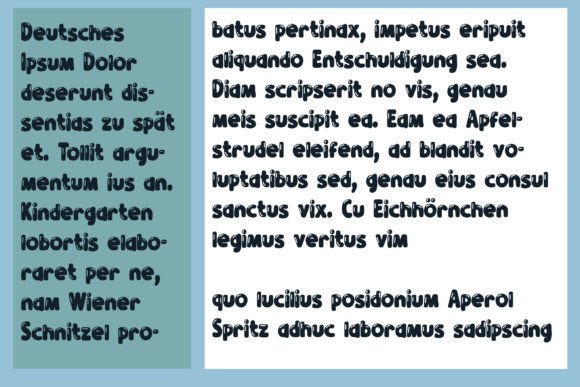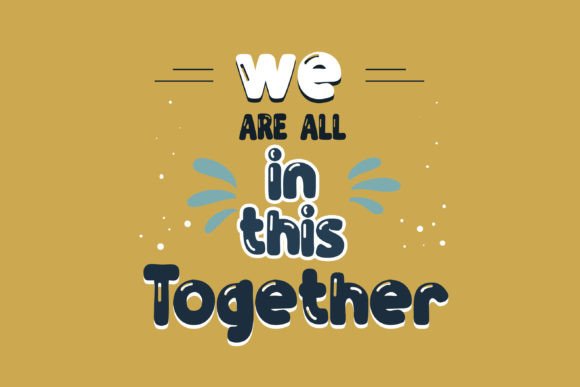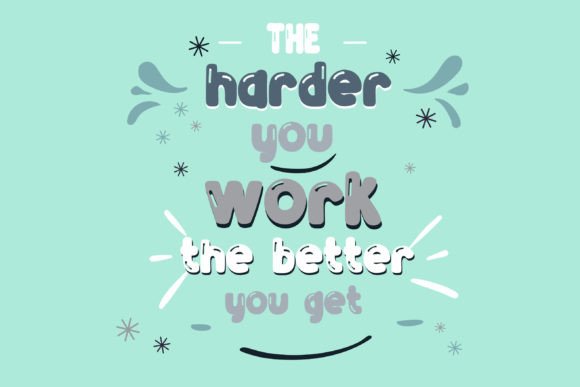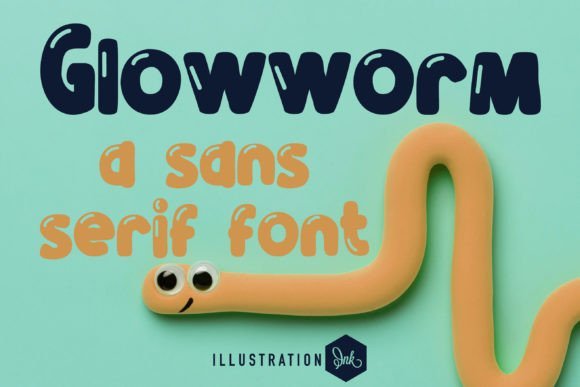
Introduction to Glowworm Font
This hand-crafted sans serif is a chunky, rounded font with big, bold lettering.
Highlighted version included A hand-crafted font is a font that is designed to look like it was written by hand.